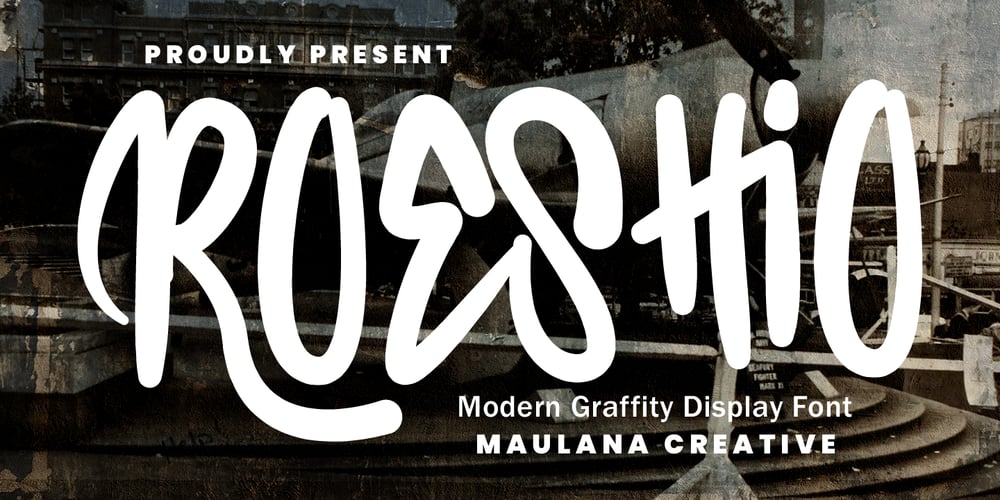
MC Roeshio Font Family was designed by Gilang Maulana and published by Maulana Creative. MC Roeshio contains 1 styles and family package options. Roeshio graffiti display font, fun character with a alternate and ligature. To give you an extra creative work. Roeshio graffiti display font support multilingual language.Many Thanks